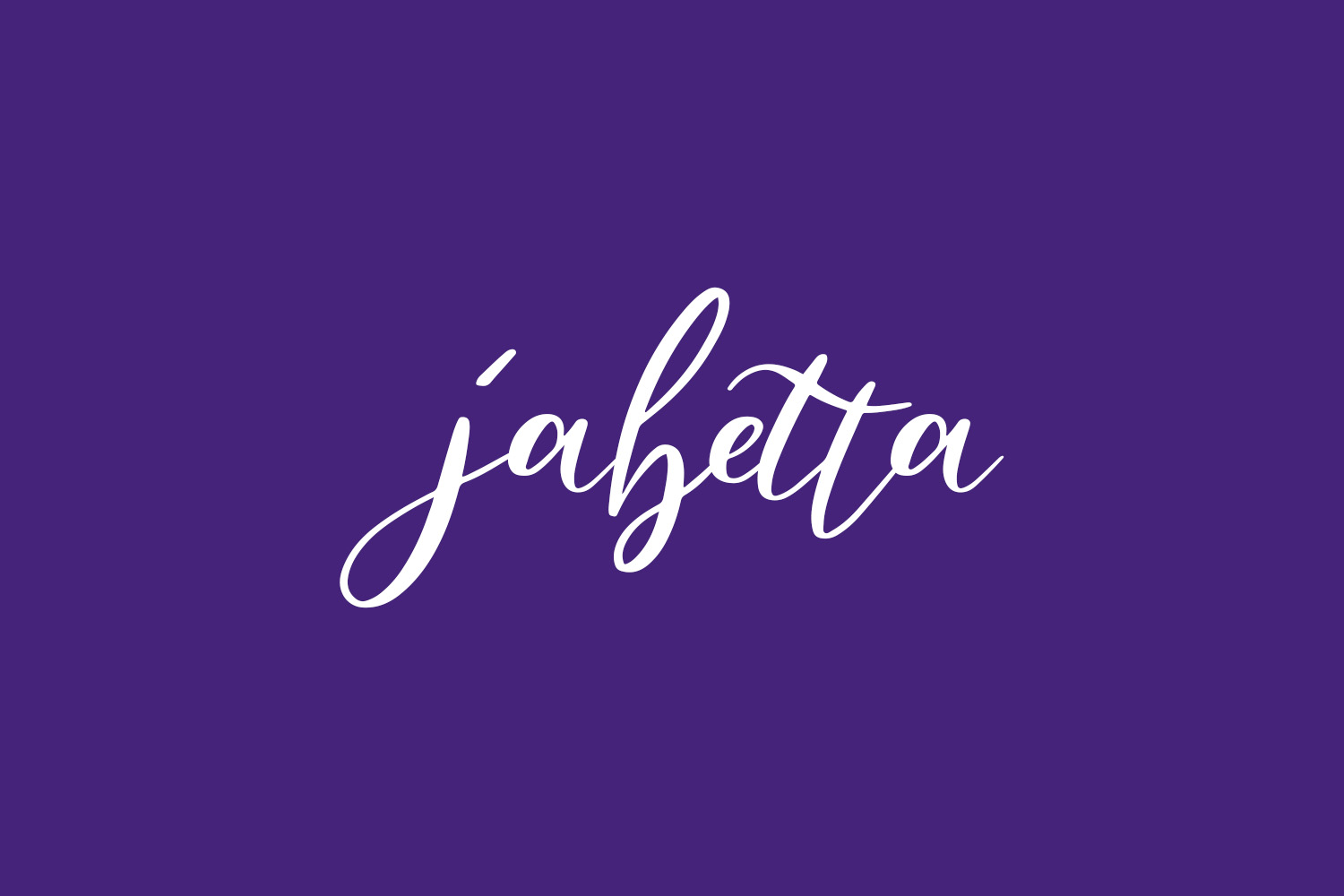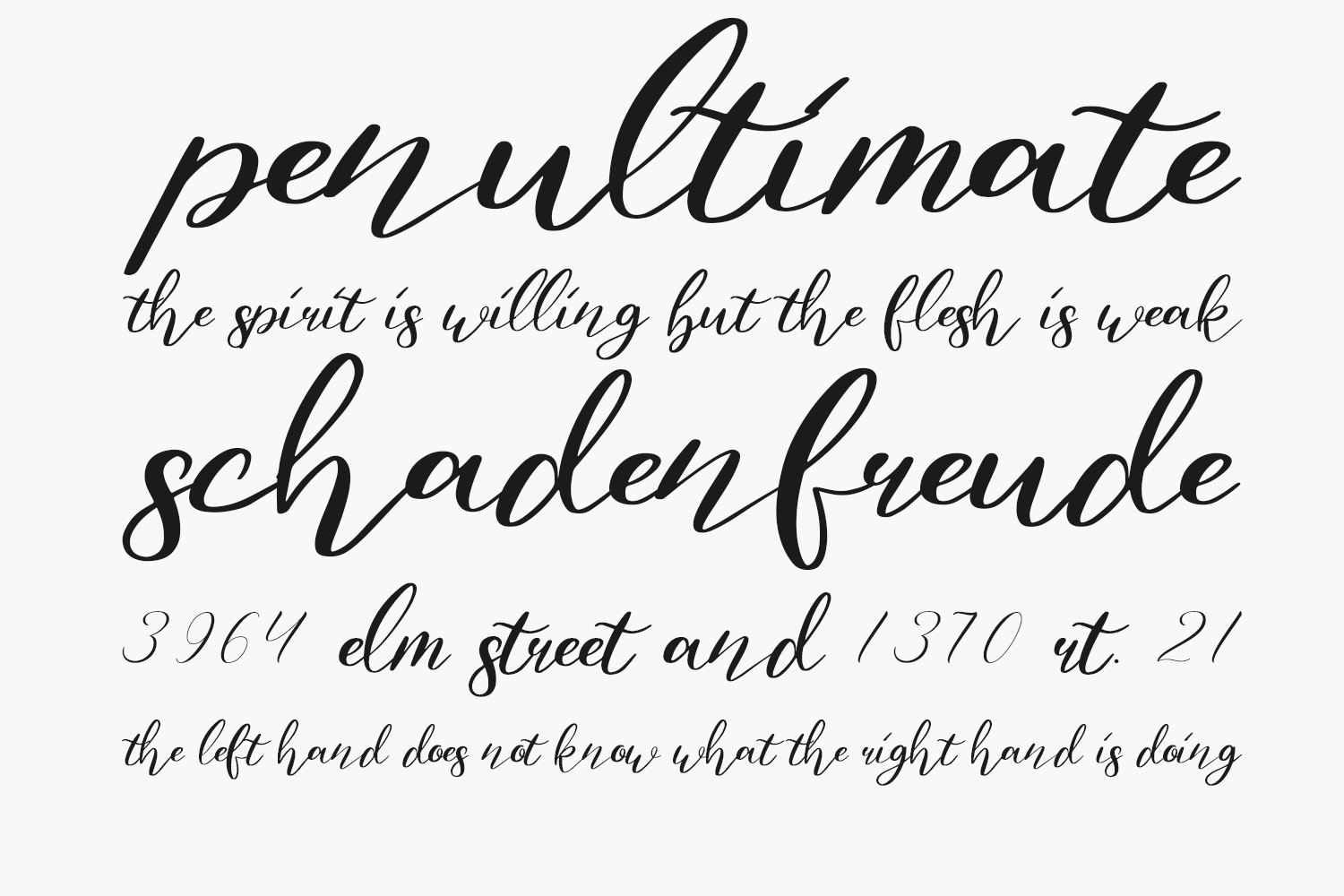
Jabetta Free Font is an organic, smooth, and gorgeous dancing font made carefully from real handwriting. A great choice for a variety of projects. Jabetta Free Font was designed by Nirmana Visual and is free for personal use only. Please purchase the full version for commercial use.